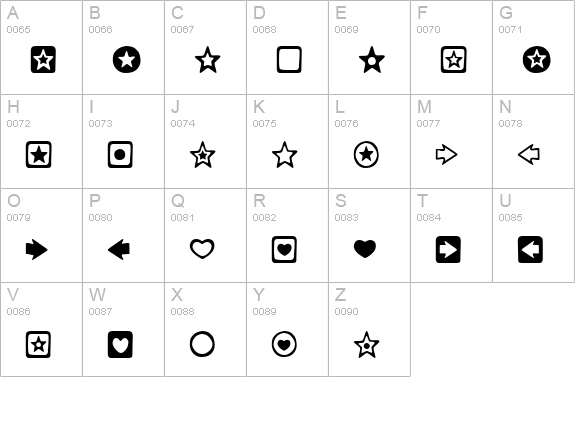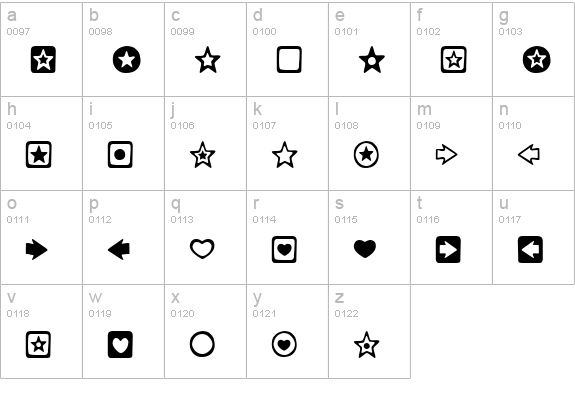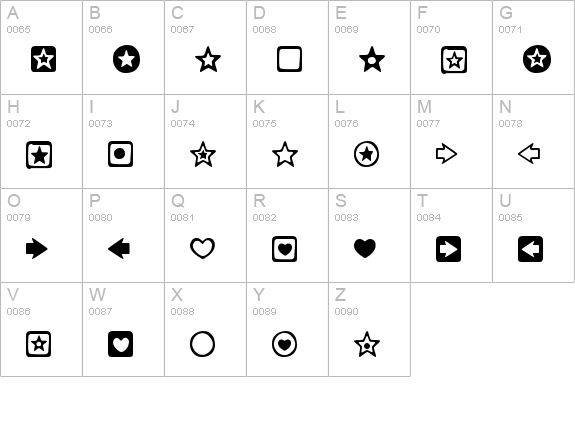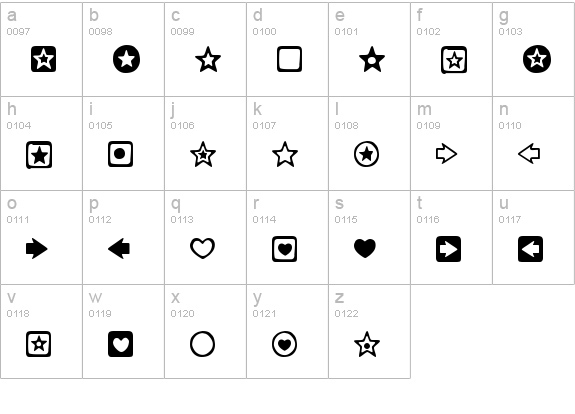
Charms BV Font Details
Charms BV font is a charming and elegant typeface that exudes sophistication and style. With its delicate strokes and graceful curves, this font is perfect for adding a touch of class to your designs. Whether you're creating invitations, branding materials, or social media graphics, Charms BV font will elevate your projects to the next level. The best part? Charms BV font is available for free download at FontsMarket.com. You can easily access this exquisite font and enhance your creations with its timeless beauty. Embrace the allure of Charms BV font and let your designs shine with its enchanting appeal.